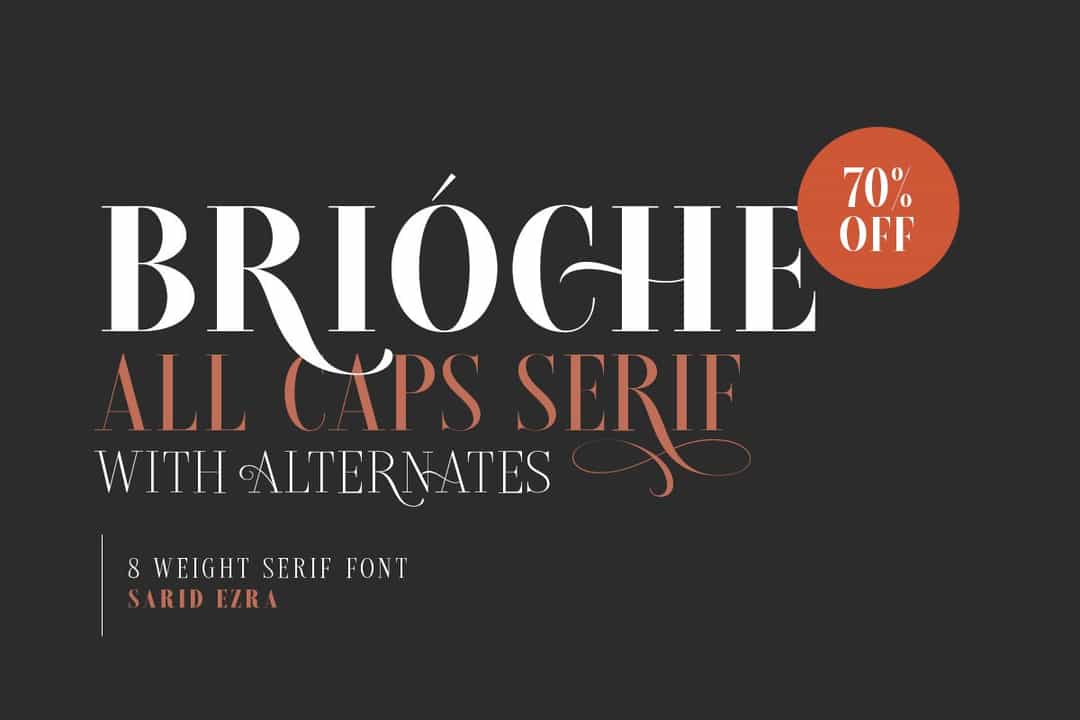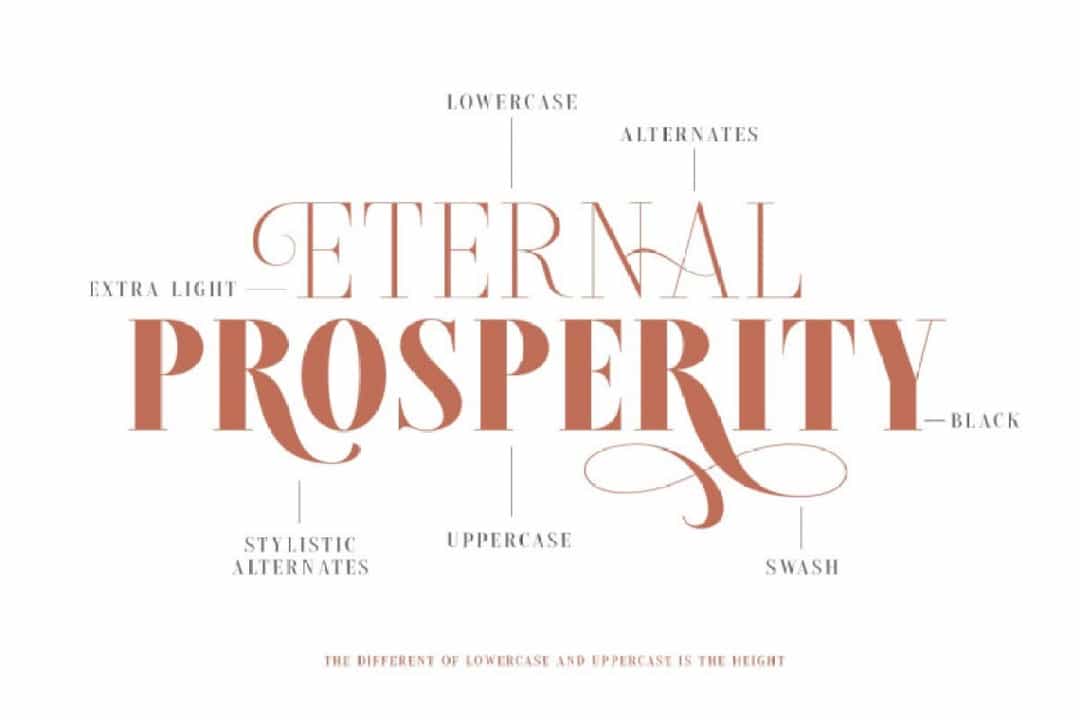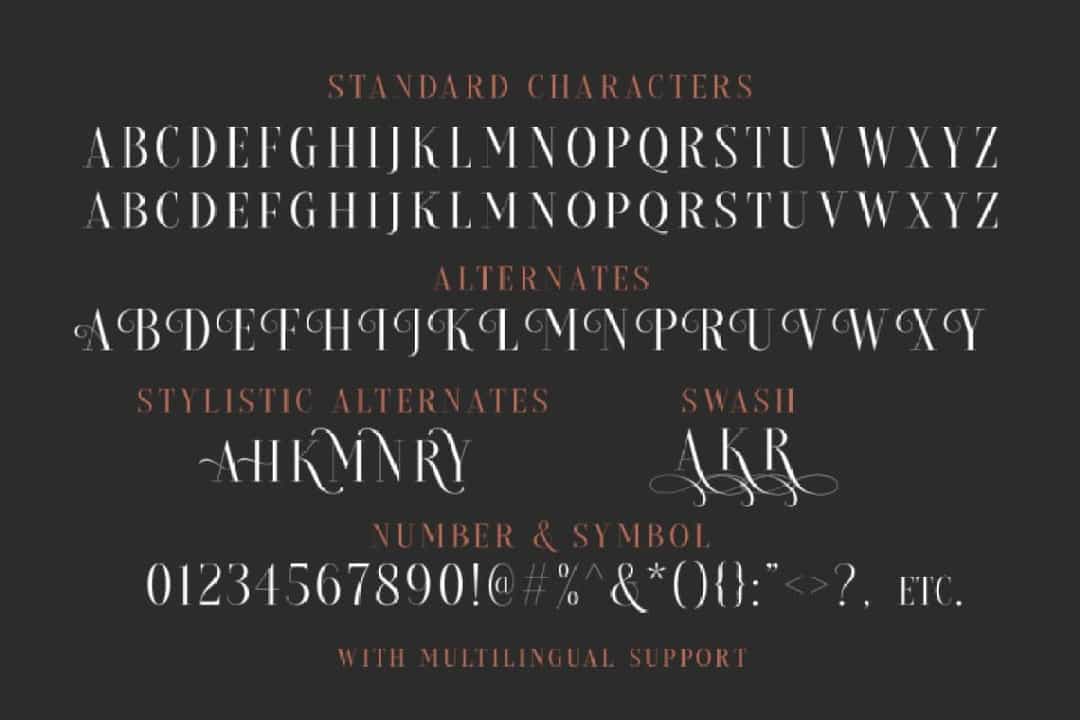
Brioche is a vintage, yet stylish, serif font. This font contains 8 levels of weight and all the characters that have options to make your logo or any other presentation look much better. There are four styles which can serve different purposes and this font also supports Multi Language and it is also PUA encoded!